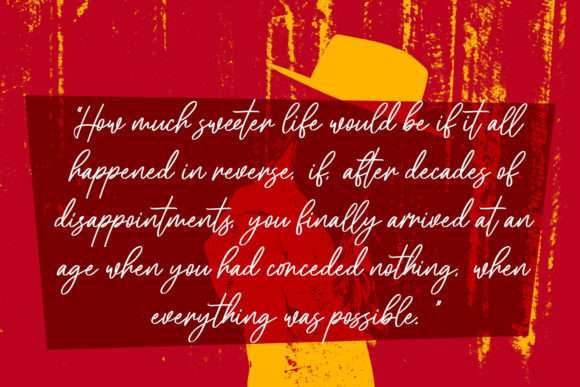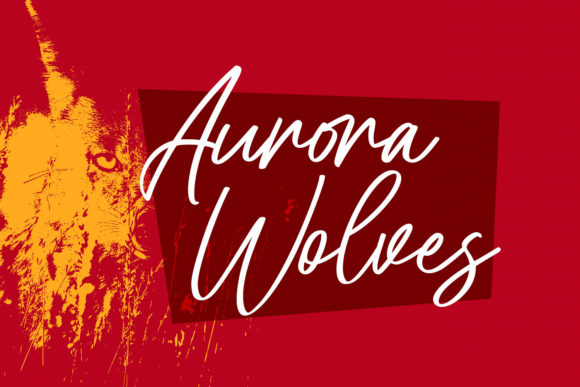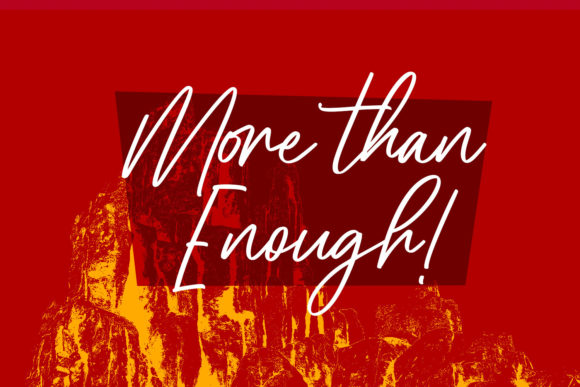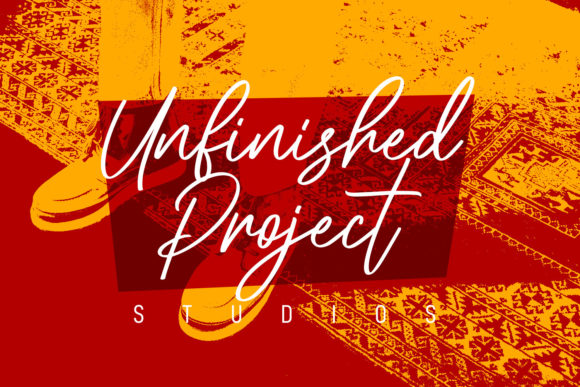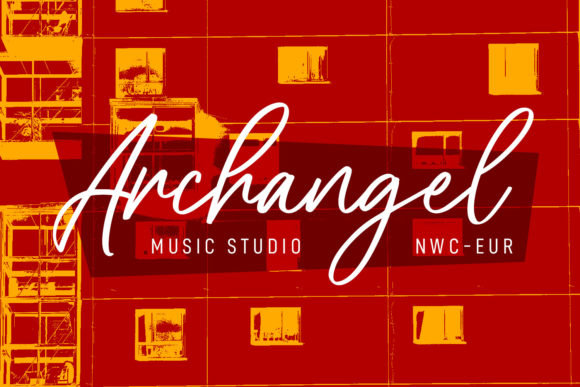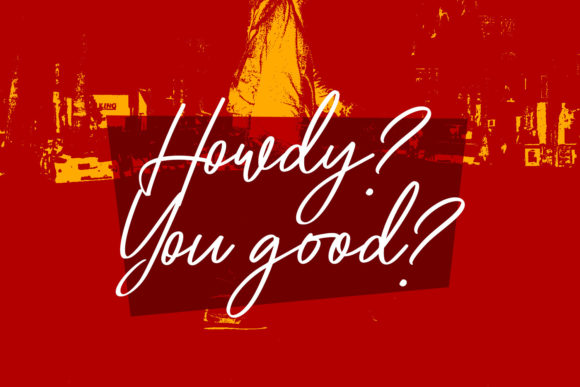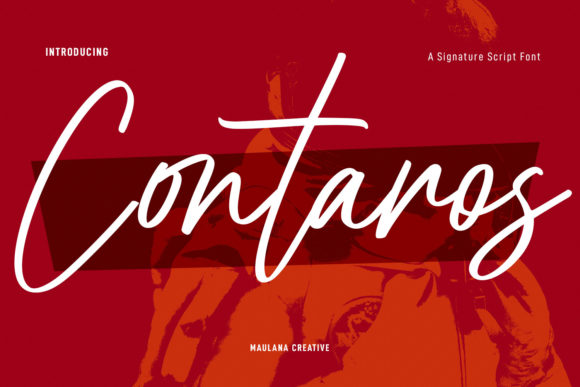
Introducing Contaros Script Font: Elevate Your Designs with a Relaxed and Adaptable Touch
In the world of typography, a font can make or break a design. It’s the perfect blend of style, elegance, and personality that can transform a simple concept into a stunning visual masterpiece. If you’re a designer or crafter looking for a font that can elevate your creative ideas to new heights, look no further than Contaros Script Font. This beautifully crafted font is designed to bring a relaxed and adaptable touch to your designs, making it incredibly versatile and perfect for a wide range of projects.
The Beauty of Contaros Script Font
Contaros Script Font is a true gem in the world of typography. Its relaxed and flowing script style exudes a sense of elegance and sophistication, making it perfect for designs that require a touch of refinement. The font’s adaptability is one of its standout features, allowing it to seamlessly integrate into various design concepts, from modern and trendy to classic and traditional.
One of the key benefits of Contaros Script Font is its incredible versatility. Whether you’re working on a branding project, a wedding invitation, or a packaging design, this font can effortlessly adapt to your needs. Its unique charm and character make it an excellent choice for designers who want to add a personal touch to their work.
What Makes Contaros Script Font So Special?
So, what sets Contaros Script Font apart from other fonts in its category? Here are a few features that make it a standout choice for designers and crafters:
• Relaxed and Adaptable: Contaros Script Font is designed to be relaxed and adaptable, making it perfect for a wide range of design projects.
• Unique Character: The font’s unique charm and character make it an excellent choice for designers who want to add a personal touch to their work.
• Elegant and Sophisticated: Contaros Script Font exudes a sense of elegance and sophistication, making it perfect for designs that require a touch of refinement.
• Highly Versatile: The font’s adaptability makes it suitable for various design concepts, from modern and trendy to classic and traditional.
How to Use Contaros Script Font in Your Designs
Adding Contaros Script Font to your design projects is easy. Here are a few tips to get you started:
• Pair it with Other Fonts: Contaros Script Font pairs well with other fonts, making it easy to create a unique and visually appealing typography combination.
• Use it for Headings and Titles: The font’s elegant and sophisticated style makes it perfect for headings and titles.
• Add it to Your Branding: Contaros Script Font can add a personal touch to your branding, making it more relatable and engaging.
Why Designers and Crafters Love Contaros Script Font
Designers and crafters love Contaros Script Font for its unique blend of style, elegance, and personality. Here are a few reasons why:
• Easy to Read: The font’s clear and flowing script style makes it easy to read, even at small sizes.
• High-Quality Design: Contaros Script Font is designed with high-quality craftsmanship, making it perfect for professional designs.
• Constantly Updated: The font is regularly updated to ensure it stays relevant and fresh.
Contaros Script Font is a beautifully crafted font that can elevate your designs to new heights. Its relaxed and adaptable style makes it perfect for a wide range of projects, from modern and trendy to classic and traditional. With its unique charm and character, Contaros Script Font is an excellent choice for designers and crafters who want to add a personal touch to their work. So why wait? Add Contaros Script Font to your favorite creative ideas and notice how it makes them come alive!
In conclusion, Contaros Script Font is a must-have for any designer or crafter looking to add a touch of elegance and sophistication to their designs. Its versatility, unique character, and high-quality design make it an excellent choice for a wide range of projects. Try Contaros Script Font today and experience the difference it can make in your designs!